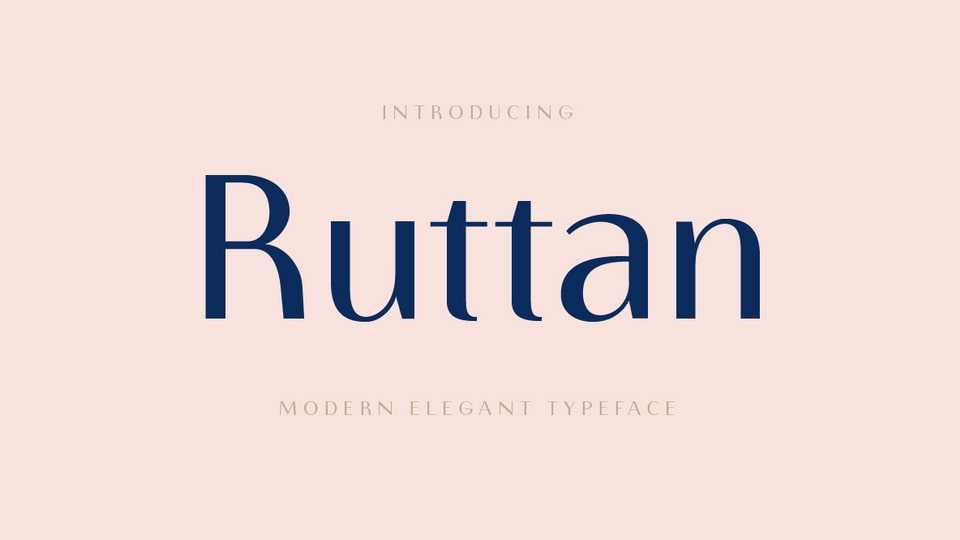
Download Ruttan font, a modern elegant sans serif typeface with tall, thin shapes. Ruttan font is perfect for high fashion branding, cinematic videos, social media titles and other cutting-edge creations
Designer: Yukita Creative